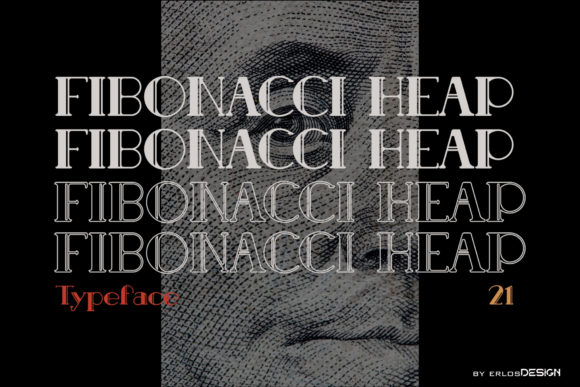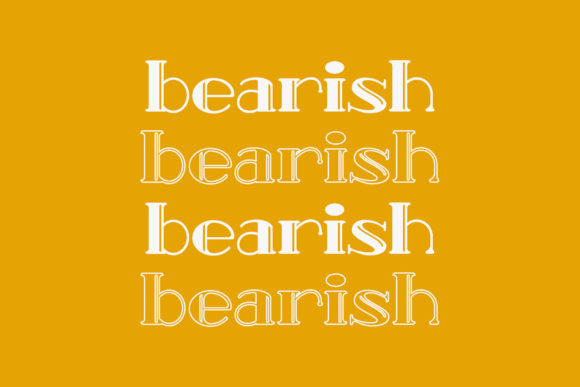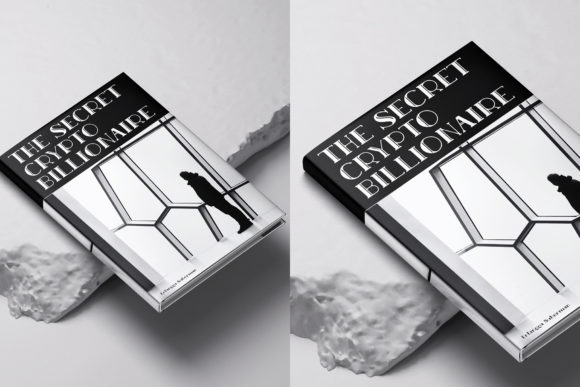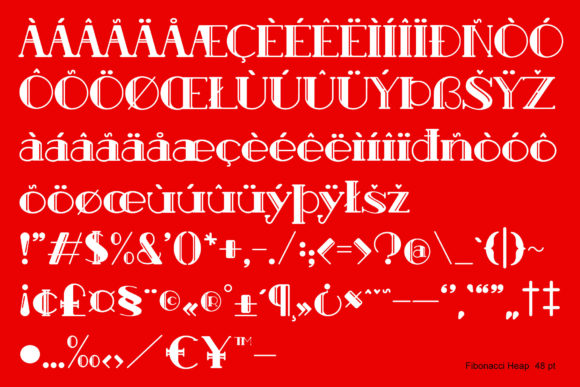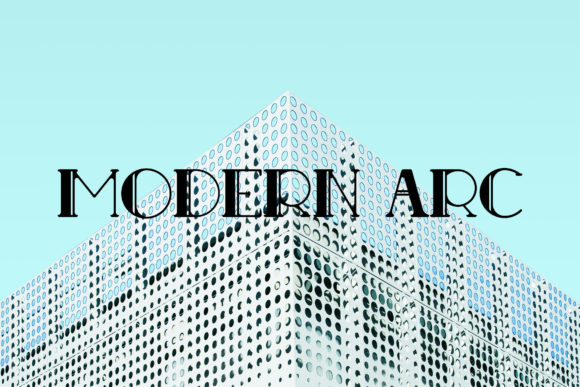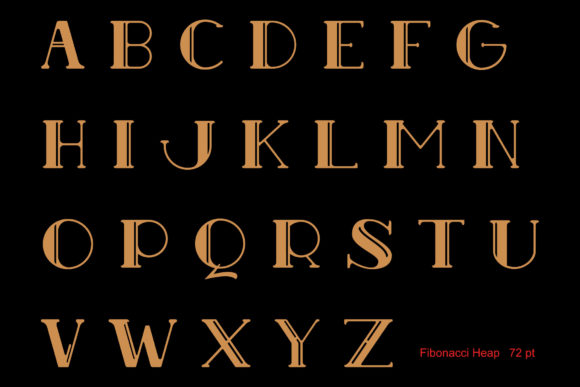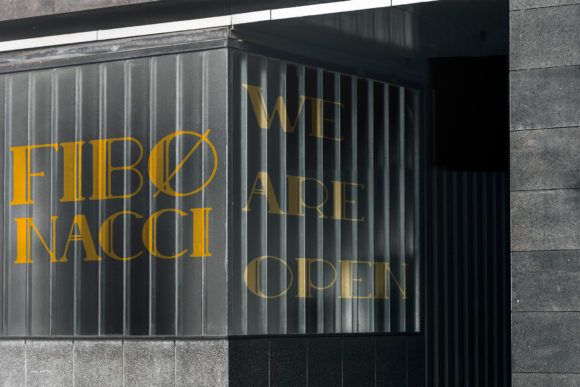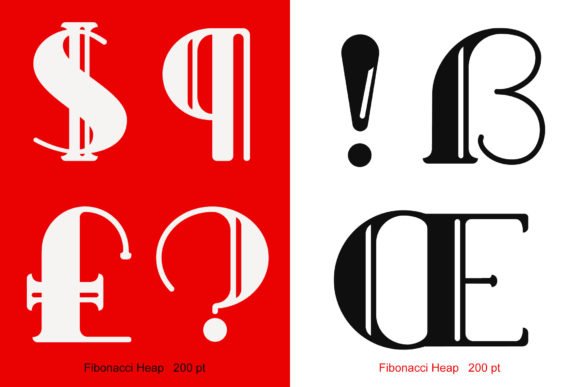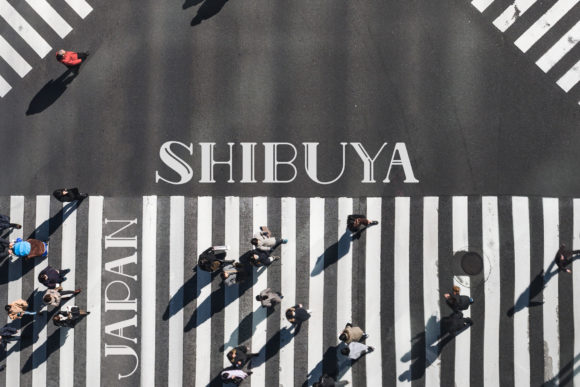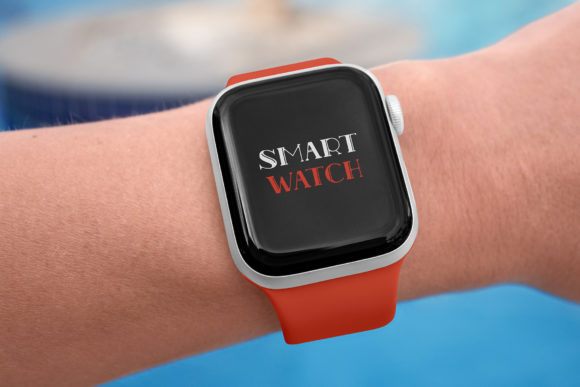
Fibonacci Heap Font
Fibonacci Heap is a vintage styled and adaptable slab serif font. Add it confidently to your favorite creations and let yourself be amazed by the outcome generated.